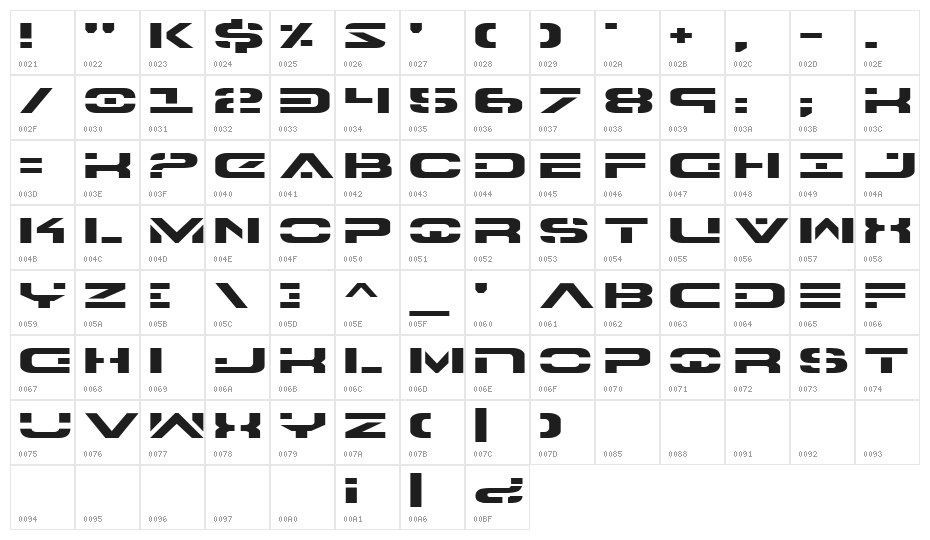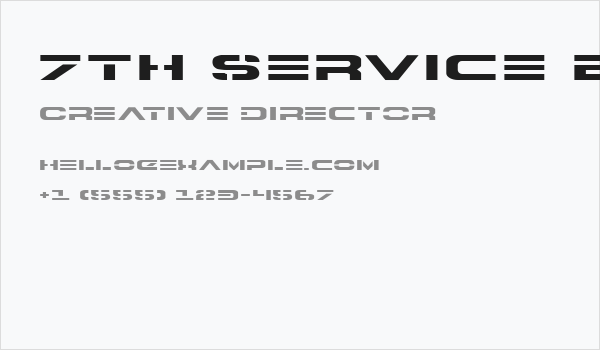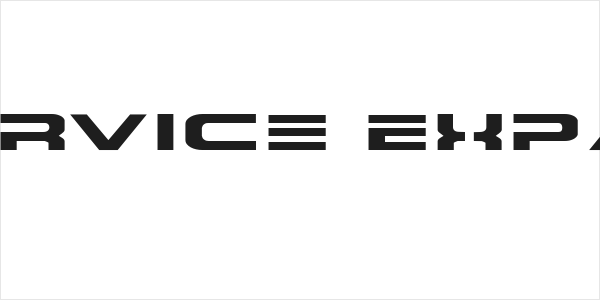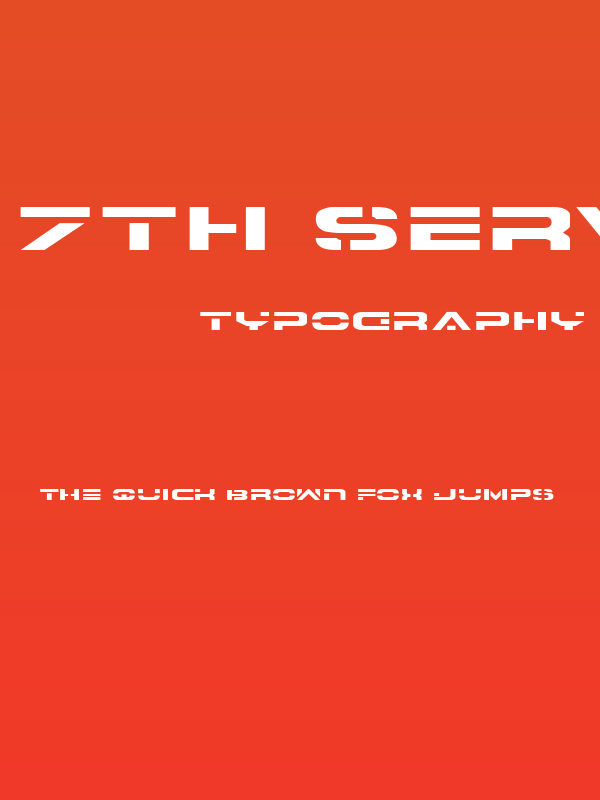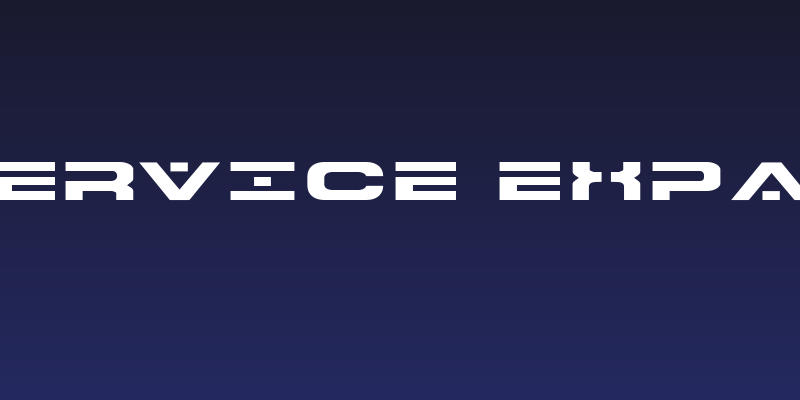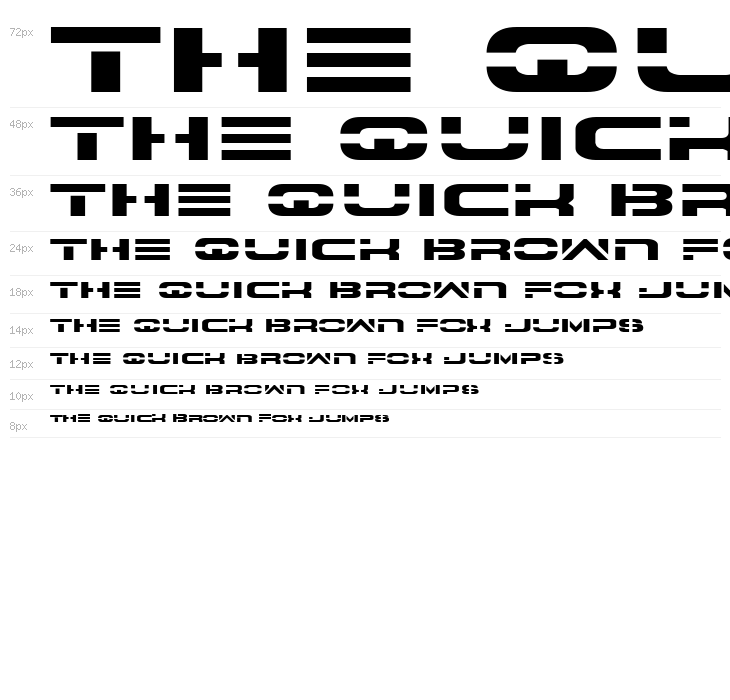
7th Service Expanded Font
7th Service Expanded Description
This font features a bold, futuristic design with a distinct geometric style. The characters are constructed with sharp angles and clean lines, giving it a modern and technical appearance. The uppercase and lowercase letters maintain a consistent width, while the numerals and special characters are designed to match the overall aesthetic. The font's unique cut-out sections within each character add a dynamic and eye-catching element, making it suitable for projects that require a strong visual impact.
| Proposed Projects | Ideal for technology branding, sci-fi themed projects, video game titles, and modern advertising. |